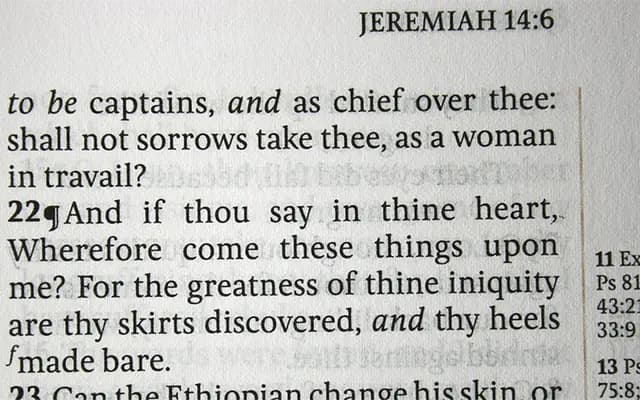
Pona
A text serif by Jordi Embodas drawing on Times, Baskerville, Garamond and Plantin, with a generous x-height and even grey value suited to body copy at small sizes.
Designed in 2010 by Jordi Embodas, Pona is a text family of ten styles spanning Light to Bold with matching italics, complemented by a Display sibling of twelve styles drawn with increased contrast for large-size use. The standard family covers Latin Super Extended with small caps, four figure sets, ligatures and a full suite of OpenType features, making it well provisioned for multilingual editorial work. Pona Display's heightened contrast and refined curves give it a more formal elegance suited to headlines and short title runs.
Pona draws on a lineage including Times, Baskerville, Garamond and Plantin, placing it firmly in the transitional serif tradition with moderate contrast and a generous x-height suited to text setting.